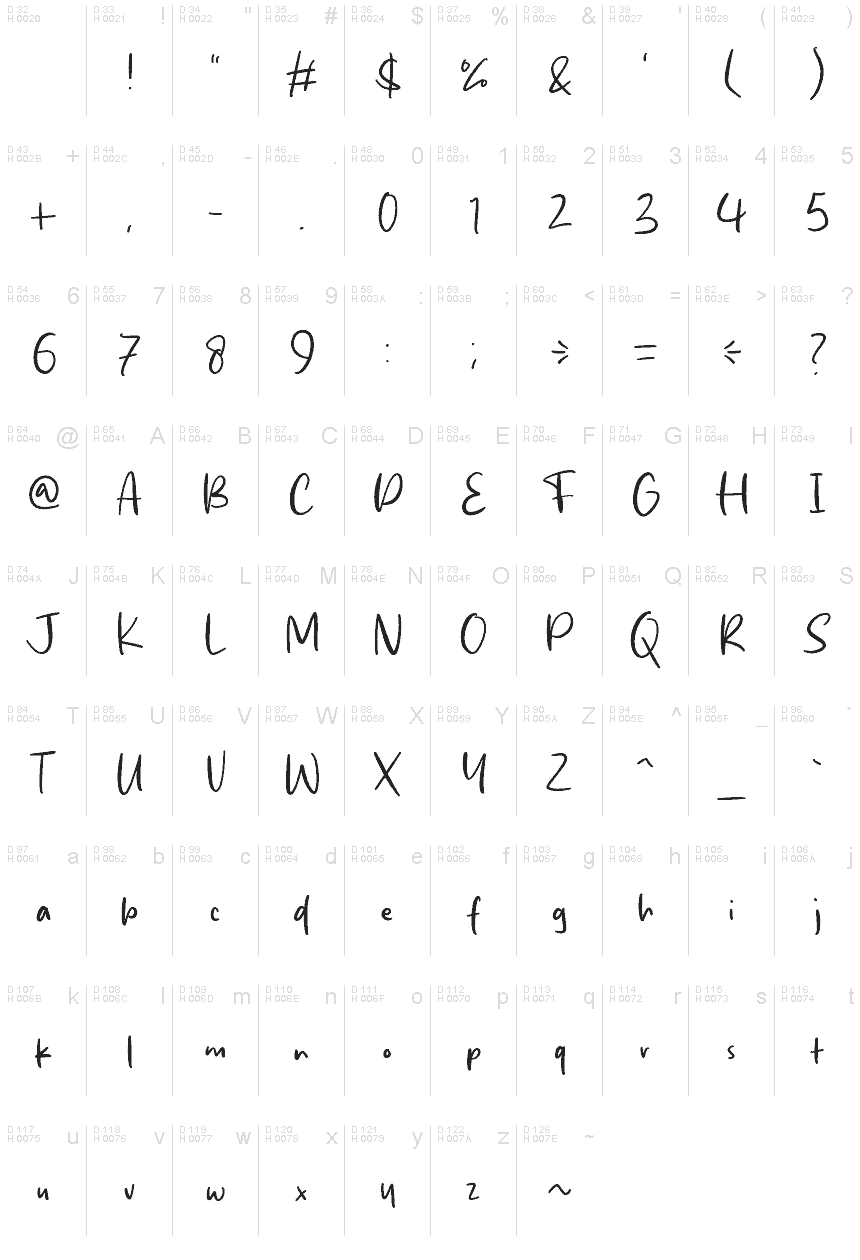
Stick Cream
Stick Cream font is a handwritten style created by MJType. Embodying a casual feel and energetic movement, it features slight irregularities that add an expressive character to its overall appearance. This free handwritten font captures the look of marker writing in a charming and effortless manner, making it suitable for displays of all types.
Use Stick Cream font for poster titles, headings, T-shirt typography, logotypes, badges and labels. Let it convey the most important texts with its beautiful design in school projects’ covers and children’s books’ covers. Also suitable for branding designs namely packaging projects or visual identity publications like catalogues or online purpose brochures.props